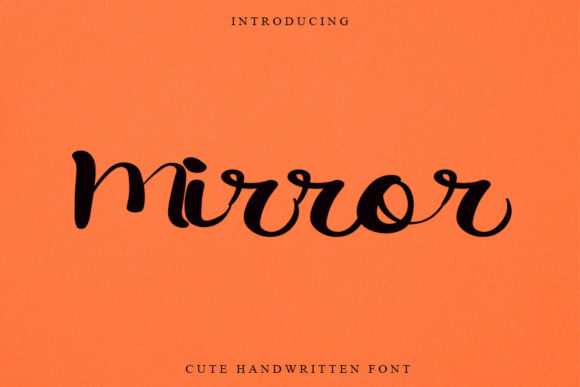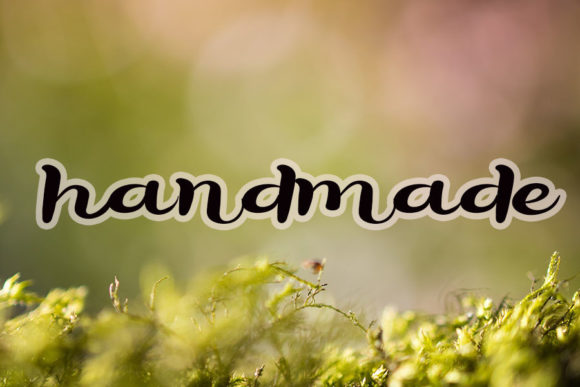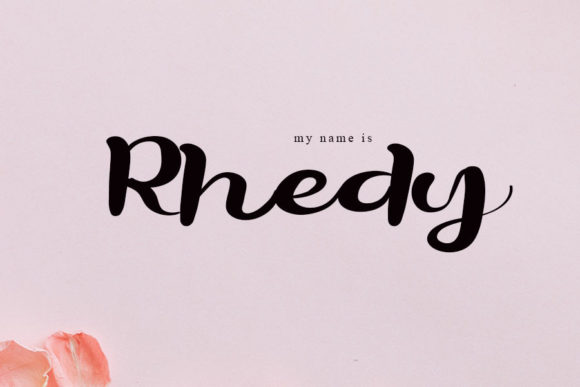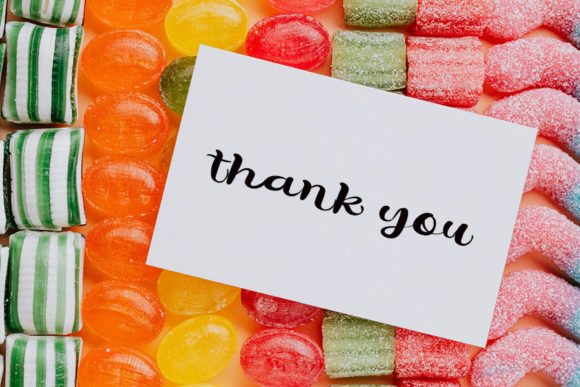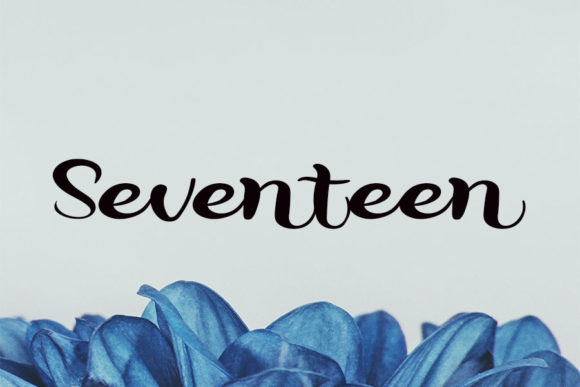
Mirror Font
Mirror is a clean, paint-brushed handwritten font that stands out as the optimal choice for creating eye-catching logos, branding, and quotes. Each letter in Mirror boasts a unique and beautiful touch, transforming your design into a vibrant and lively creation.
The clean and paint-brushed quality of Mirror makes it a versatile font, suitable for a variety of design applications. Whether applied to logos, branding materials, or quotes, Mirror adds a distinctive and visually appealing element that captures attention.
The uniqueness of each letter in Mirror contributes to its charm, providing a handcrafted feel that elevates the overall aesthetic of your designs. This font is not merely a tool for text; it’s a creative asset that brings a dynamic and lively energy to your visual projects.
In summary, Mirror is more than just a font; it’s a clean, paint-brushed handwritten typeface that infuses life into your designs. Its versatility and unique letter design make it an excellent choice for creating memorable logos, impactful branding, and eye-catching quotes. With Mirror, your designs come alive with a vibrant and distinctive character that resonates with your audience.